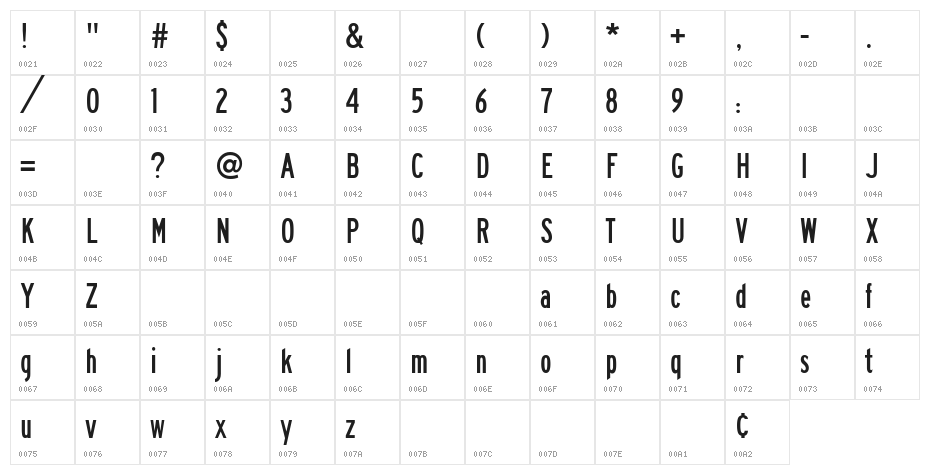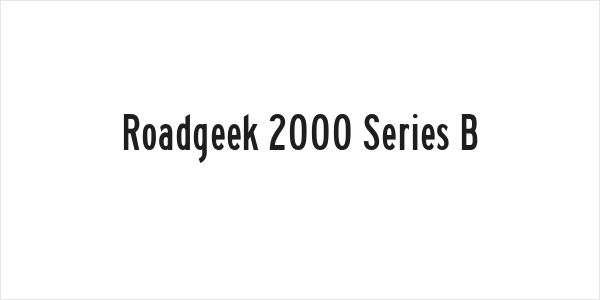
Roadgeek 2000 Series B Font
Roadgeek 2000 Series B Description
This font features a clean and modern sans-serif design, characterized by its tall and narrow letterforms. The uppercase and lowercase letters maintain a consistent height, providing a uniform appearance. The numerals are clear and easily distinguishable, making them suitable for various applications. Special characters are well-defined, adding versatility to the font. The overall style is straightforward and functional, ideal for signage and display purposes. Its simplicity and clarity ensure readability from a distance, making it a practical choice for road signs and informational displays.
| Use Case | Headlines, Signage, Informational displays |
| Proposed Projects | Perfect for road signage, informational displays, and any project requiring clear and readable text from a distance. |